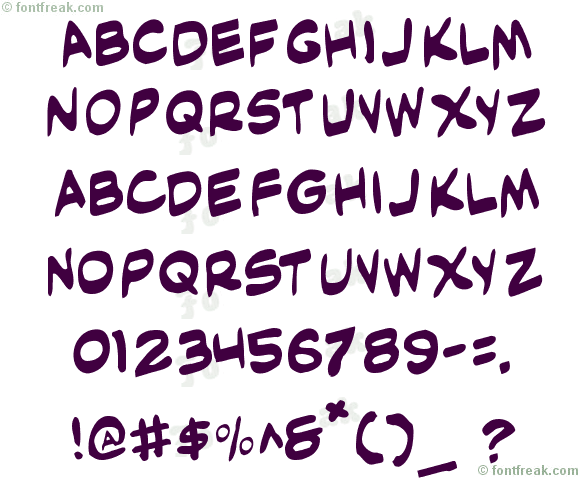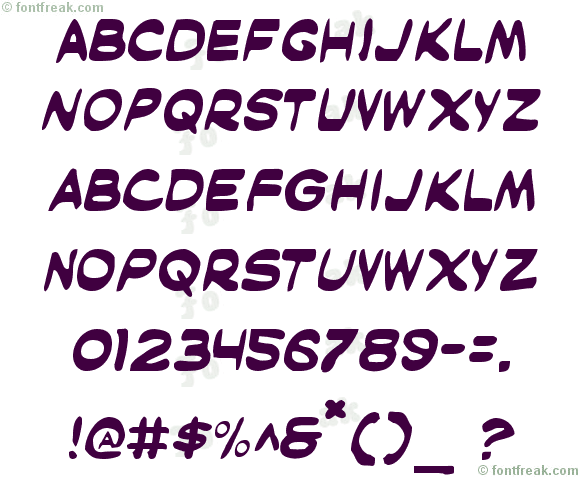
Masked Marvel Bold
About Masked Marvel Bold
Masked Marvel Bold, designed by Daniel Zadorozny in 2002, is a striking display font that falls within the category of decorative typefaces. This font showcases a unique, bold style characterized by its heavy stroke weight and playful, rounded forms. The letters exhibit a consistent visual thickness, providing a sense of solidity and impact while maintaining a friendly, approachable appearance. The spacing is well-balanced, ensuring clarity and readability, even at larger sizes, making it ideal for eye-catching designs.
This font is particularly well-suited for a variety of creative applications. Graphic designers can use Masked Marvel Bold for movie posters that require a strong visual statement, capturing the audience's attention immediately. It also works wonderfully for children's book covers, where its whimsical nature can engage young readers. Additionally, small business owners might find this font perfect for promotional materials, such as flyers or signage, as it conveys a fun and energetic vibe. Content creators can utilize Masked Marvel Bold in social media graphics, enhancing their posts with a lively and memorable typeface.
What makes Masked Marvel Bold stand out is its ability to blend boldness with a playful character, making it a fantastic choice for designs that aim to capture attention and convey a sense of fun. Whether for print or digital media, this font provides the perfect balance of personality and visibility, making it a valuable addition to any designer's toolkit.